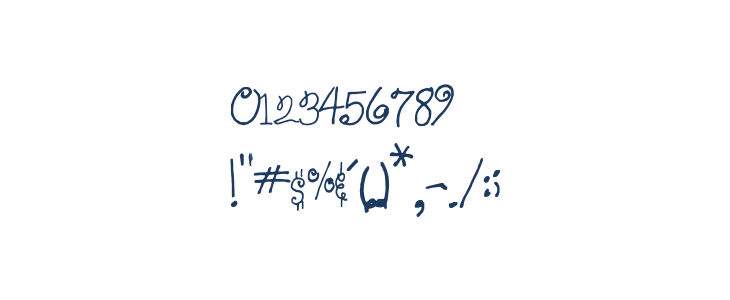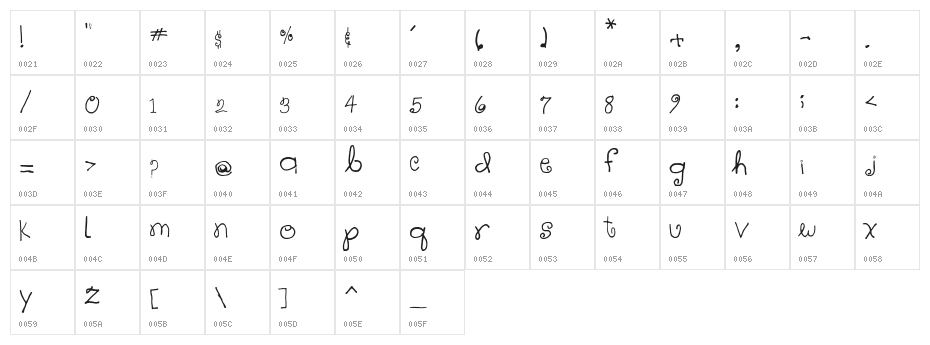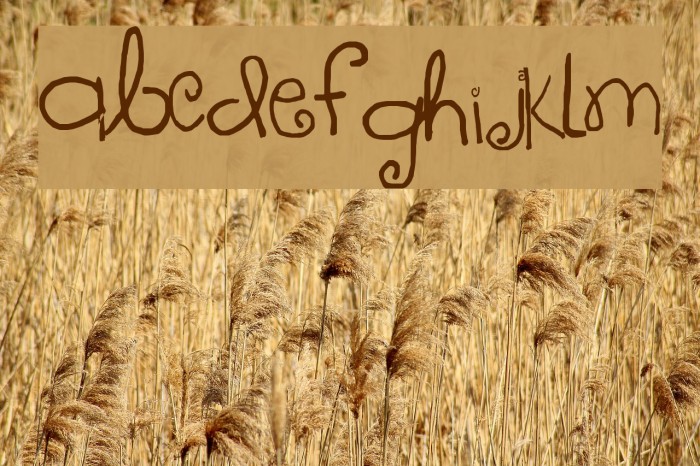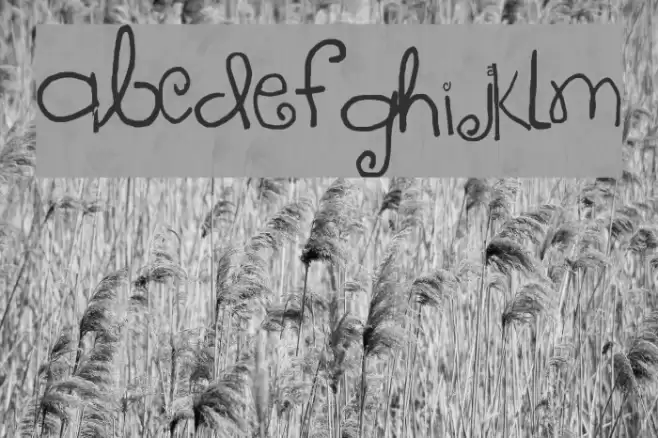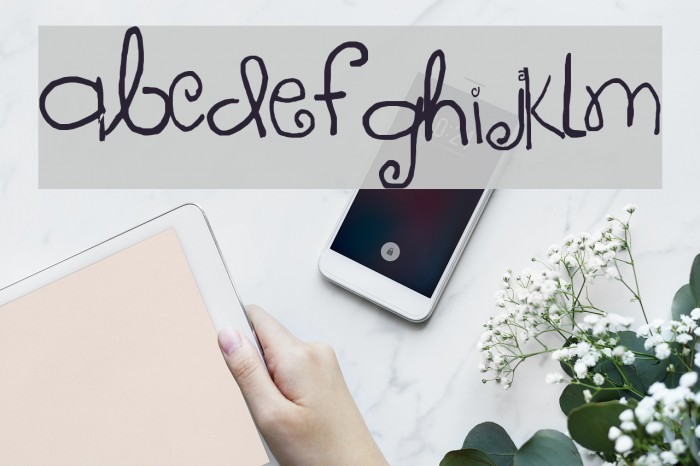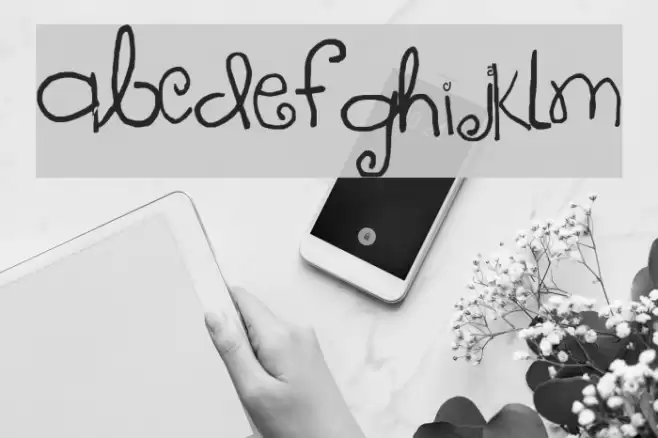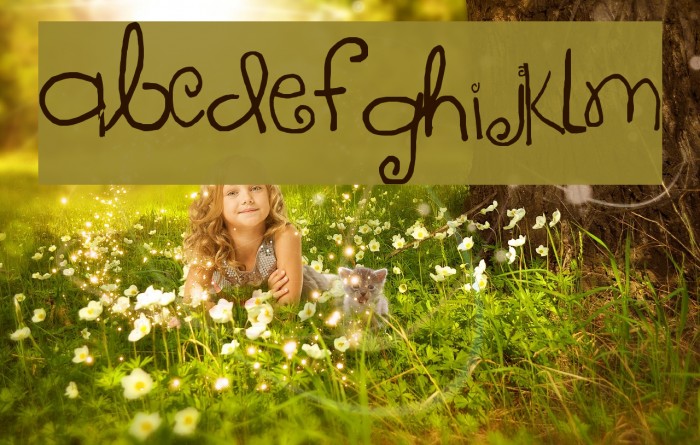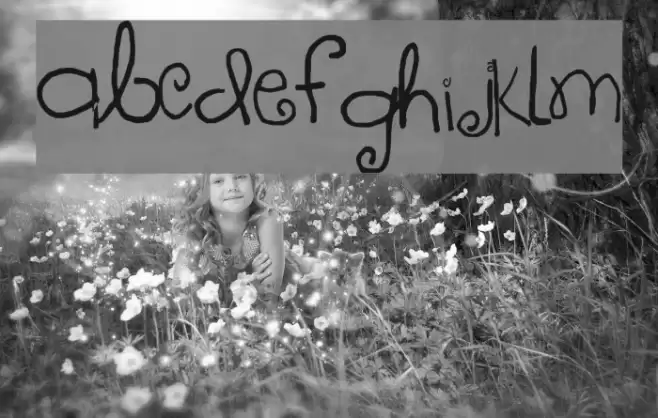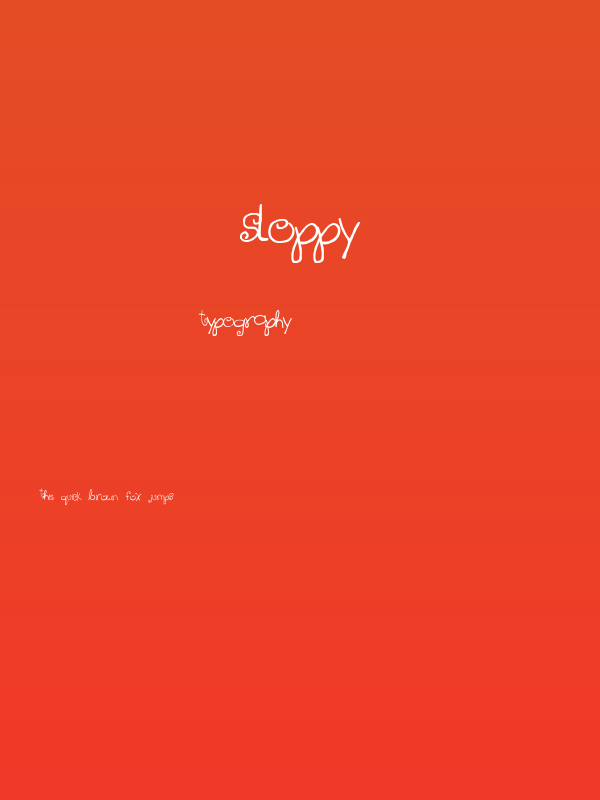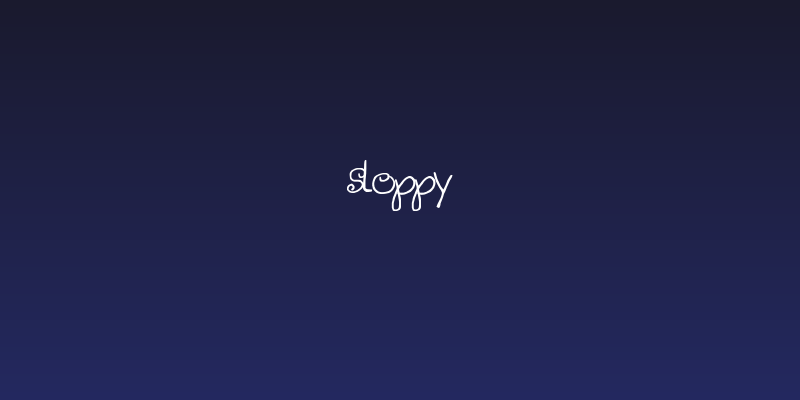
sloppy Font
sloppy Description
This font exudes a playful and whimsical character, with its hand-drawn, uneven strokes and quirky loops. The letters are irregular, giving off a casual and informal vibe, reminiscent of doodles or handwriting. The uppercase and lowercase letters maintain a consistent style, with exaggerated curves and a slightly tilted appearance. Numbers and special characters follow the same playful aesthetic, adding to the font's charm. Its unique style makes it stand out, perfect for projects that require a touch of creativity and fun.
| Proposed Projects | Ideal for children's books, creative posters, greeting cards, and playful branding. |